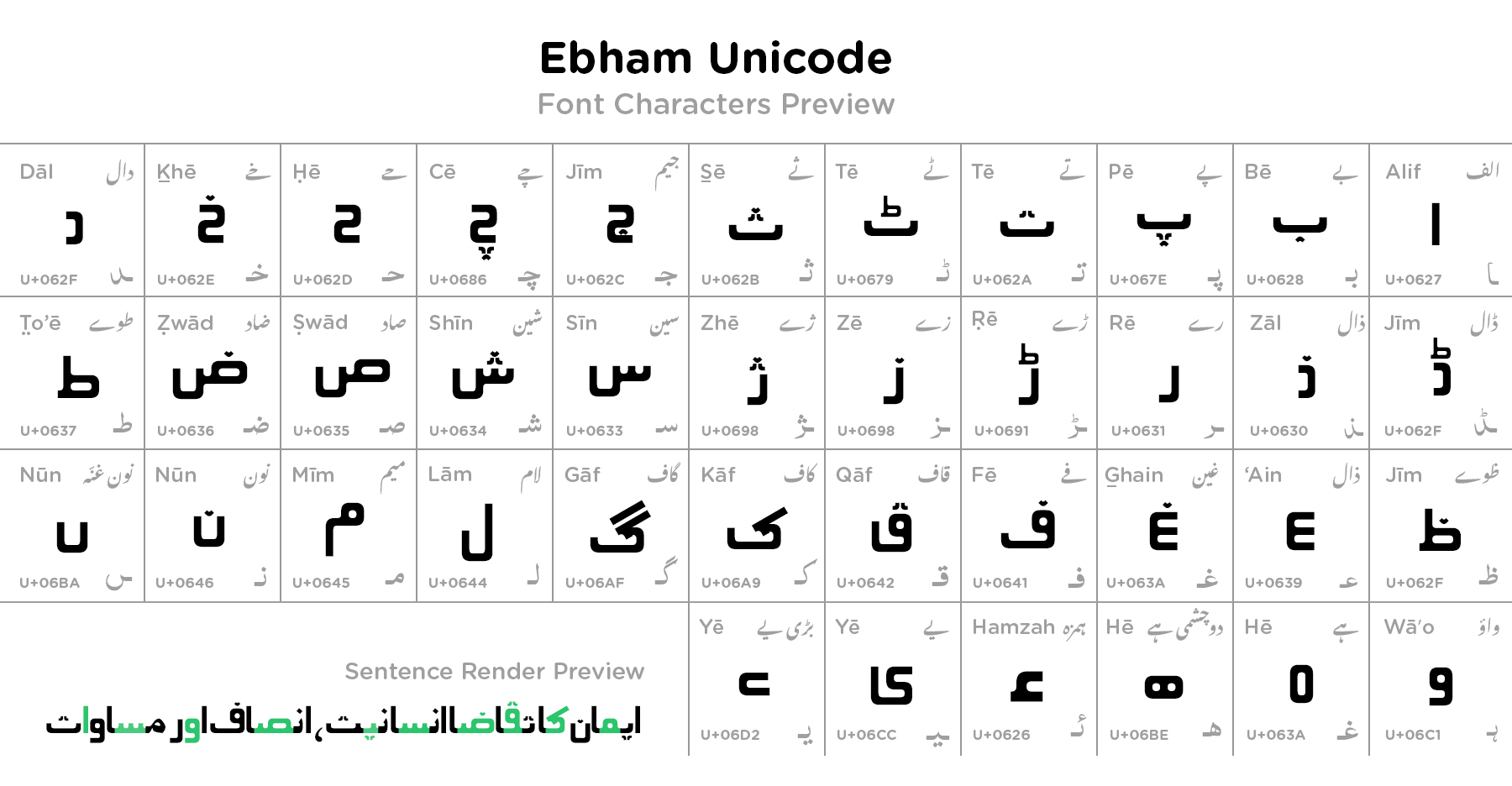
Ebham Unicode is an Arabic font designed by Syed Manzar Hasan Zaidi. This font is the property of Axis Softmedia Pvt. Ltd Mumbai India. It's a sans-serif font that's meant to be clear and legible even in small sizes. This font is also quite adaptable and may be used for different tasks, such as branding, book titles, headlines, and signage. It has a large character set of 447 and 497 number of glyphs. It has support for not only Arabic but also Greek and Latin. Moreover, it is compatible with several latest Unicode blocks including Basic Latin, Arabic, General Punctuation, and Currency Symbol, among others. Ebham Unicode also supports many OpenType features, such as ligatures and contextual alternatives, which improves readability and clarity even more. The letters are thick and wide with soft edges. The thickness of the letters is not constant, sharp and thin from the edges and bold and thick from the middle, which creates an appealing visual effect.